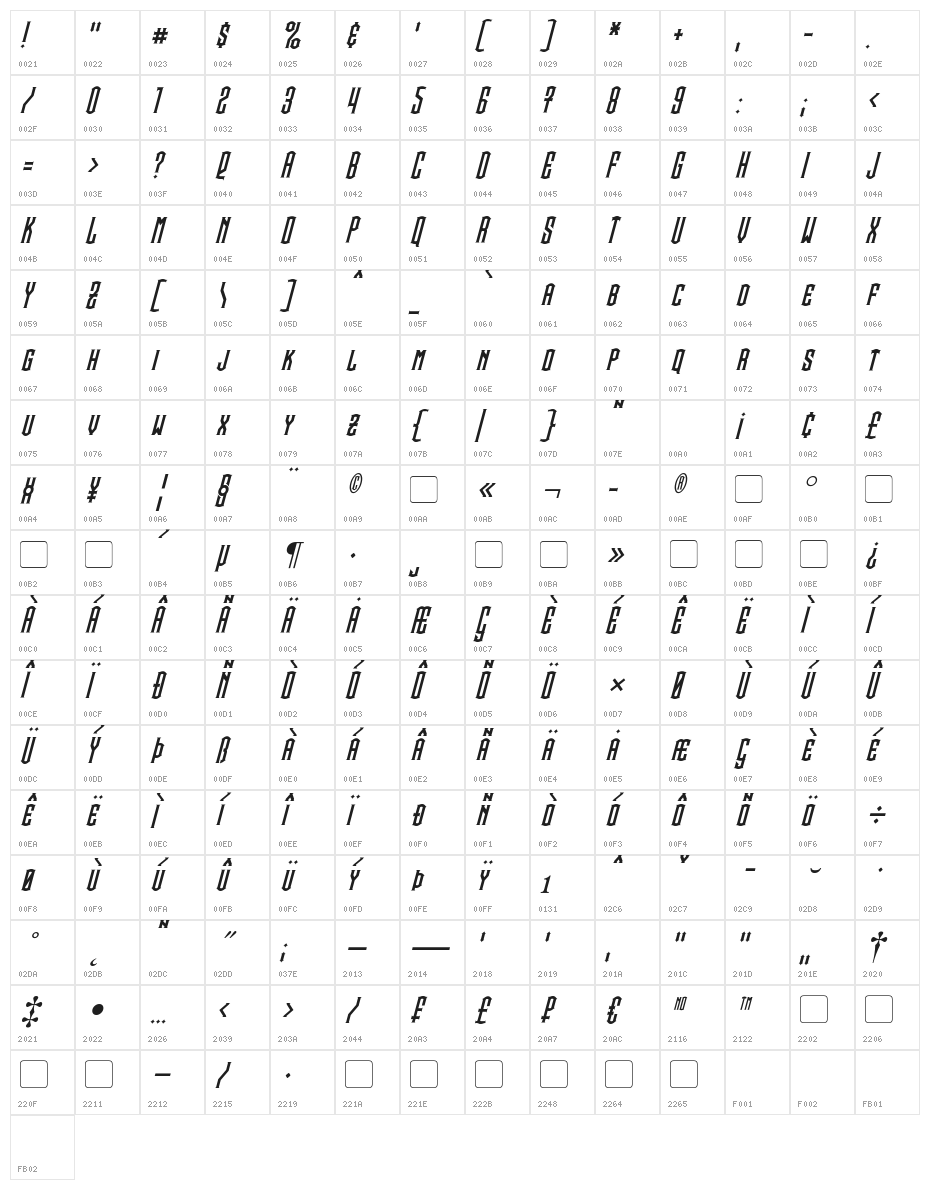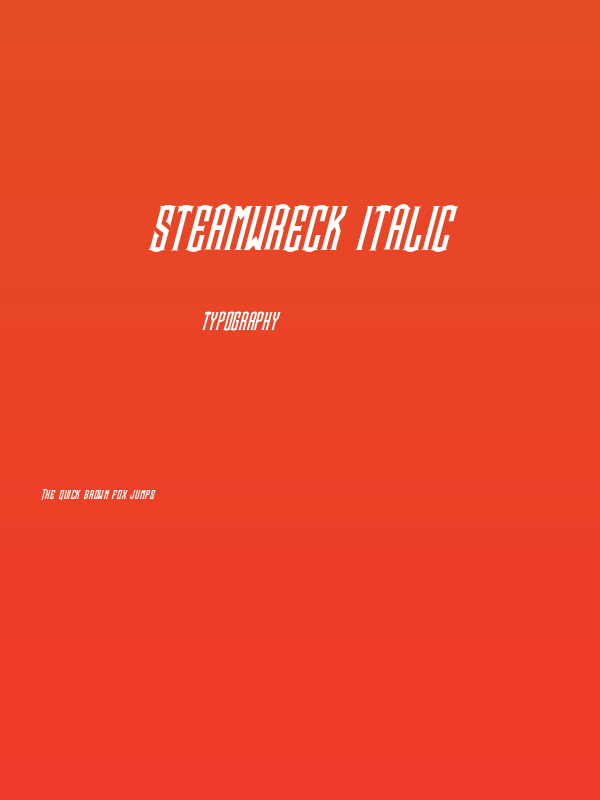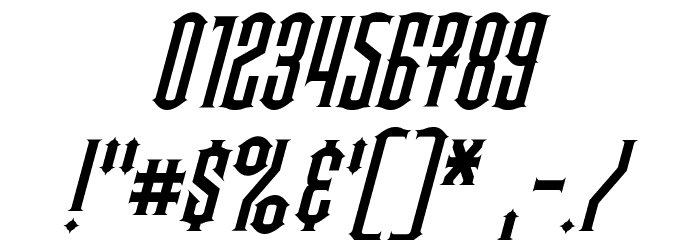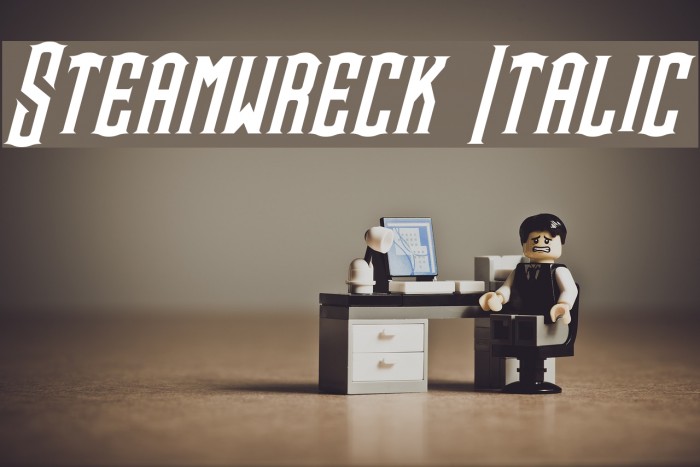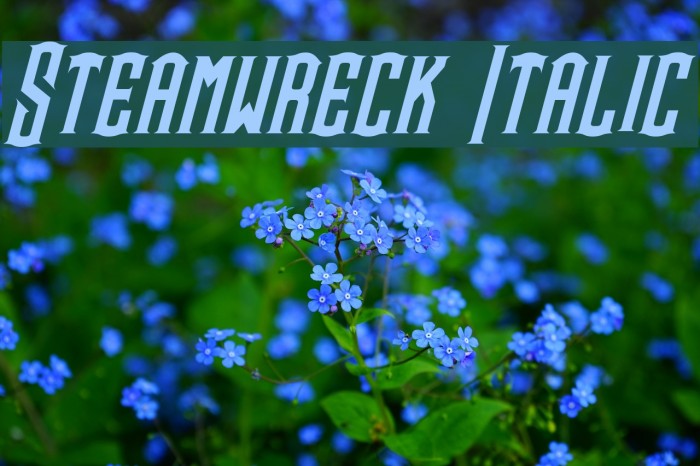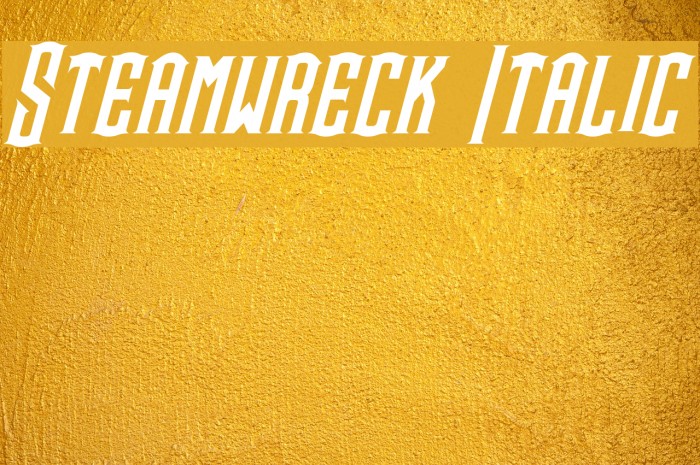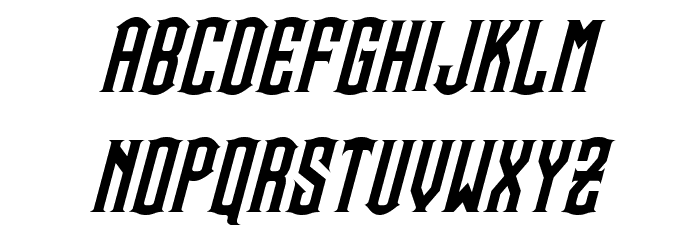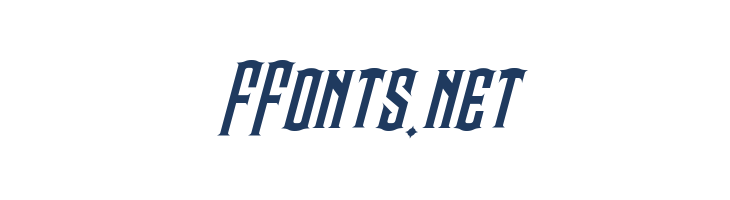
Steamwreck Italic Font
Steamwreck Italic Description
This font features a bold and dynamic style with a distinct italic slant, giving it a sense of motion and energy. The characters are sharply angled, with strong, thick strokes that convey a sense of power and modernity. The uppercase and lowercase letters maintain a consistent design, enhancing readability while adding a unique flair. Numbers and special characters are designed to match the bold aesthetic, making them stand out effectively. The overall appearance is both striking and versatile, suitable for a variety of creative applications.